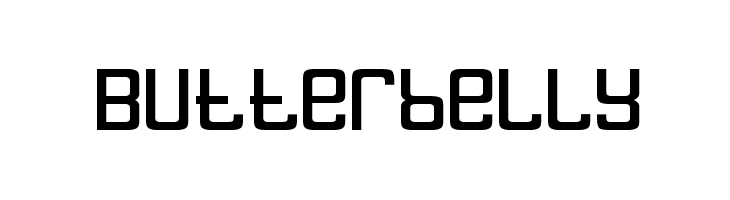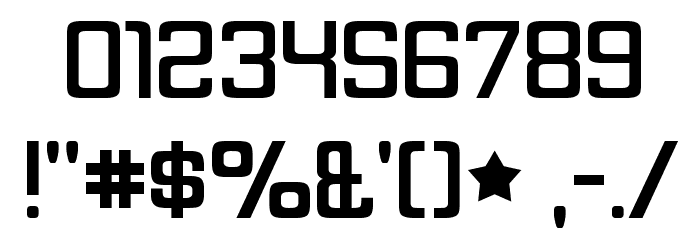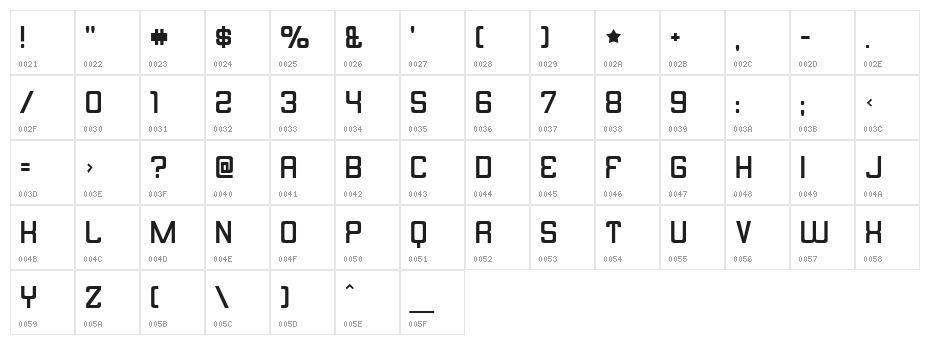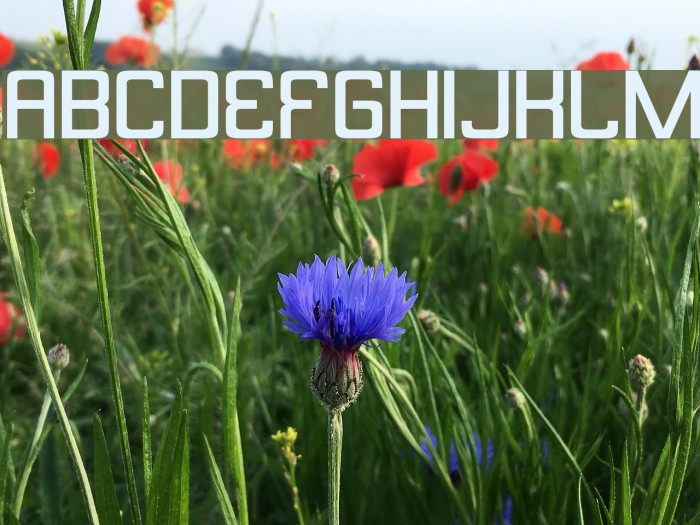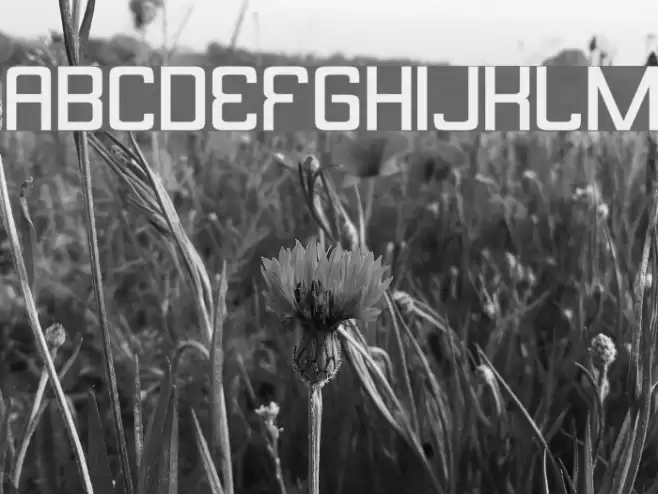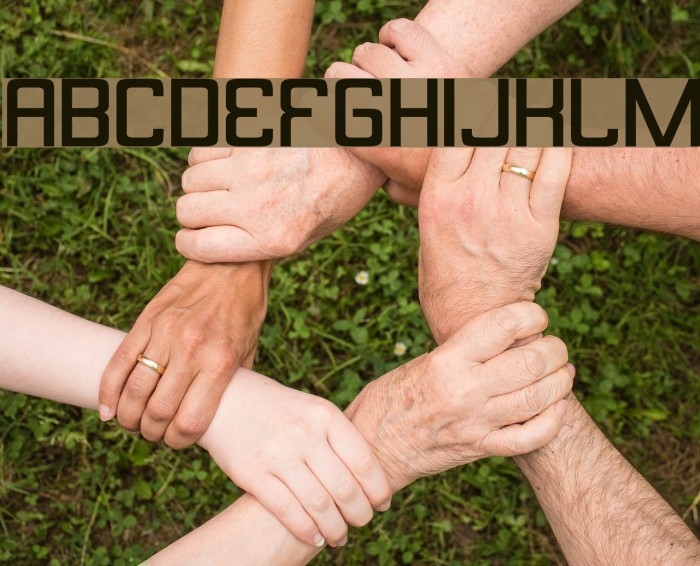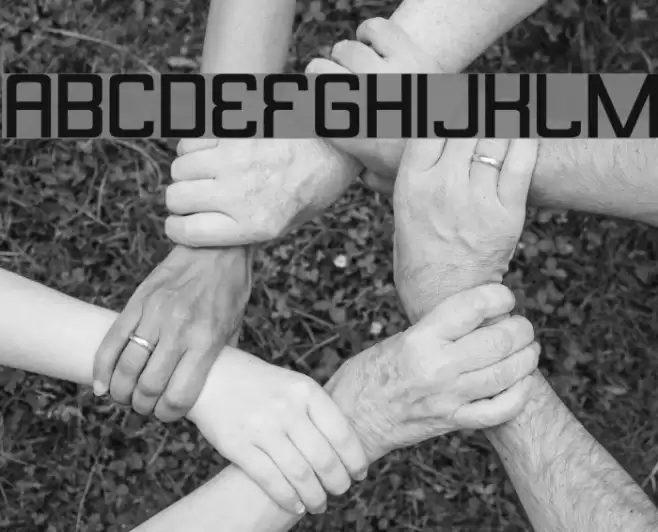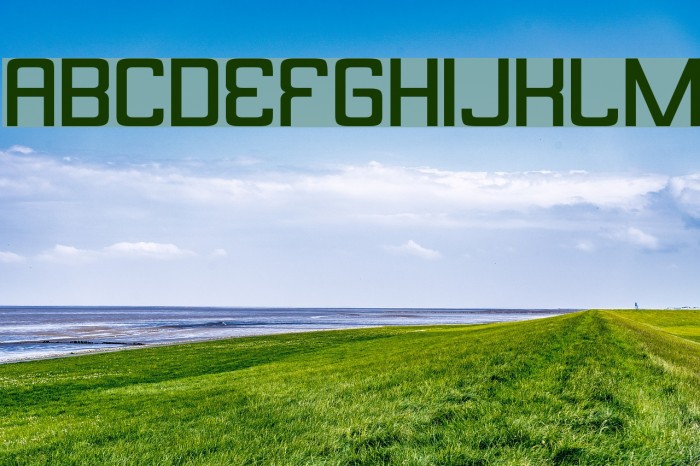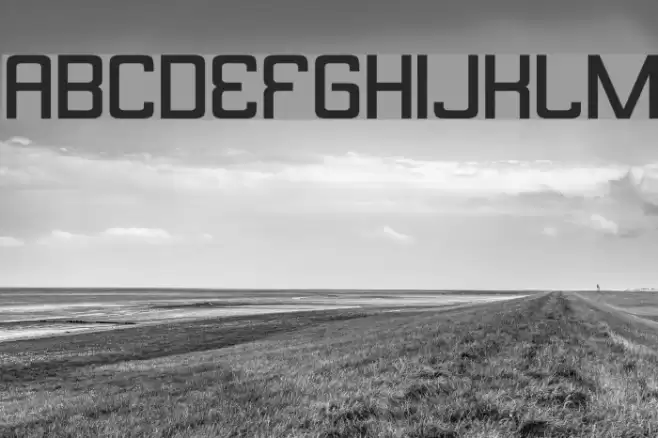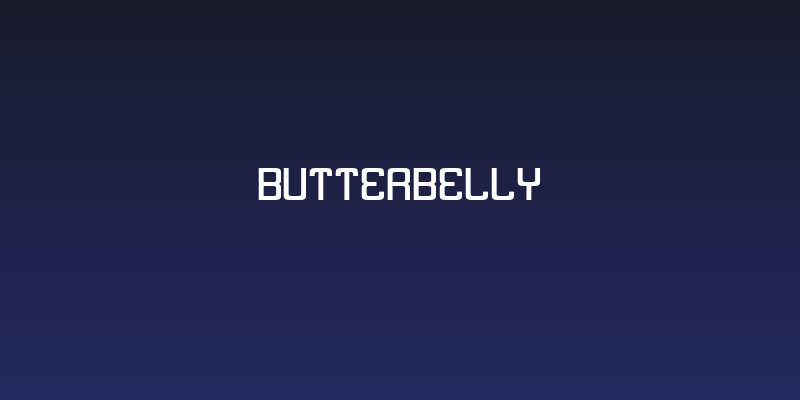
Butterbelly Font
Butterbelly Description
This font features a bold, geometric design with rounded edges, giving it a modern and approachable appearance. The characters are uniformly structured, with consistent stroke widths that create a balanced and cohesive look. The uppercase and lowercase letters maintain a similar style, with the lowercase letters slightly more compact. The numerals and special characters are designed to match the overall aesthetic, ensuring a seamless integration across different uses. The font's clean lines and contemporary feel make it suitable for a variety of applications.
| Use Case | Logos, Headlines, Branding |
| Proposed Projects | Ideal for branding, advertising, packaging, and digital media projects that require a modern and friendly touch. |